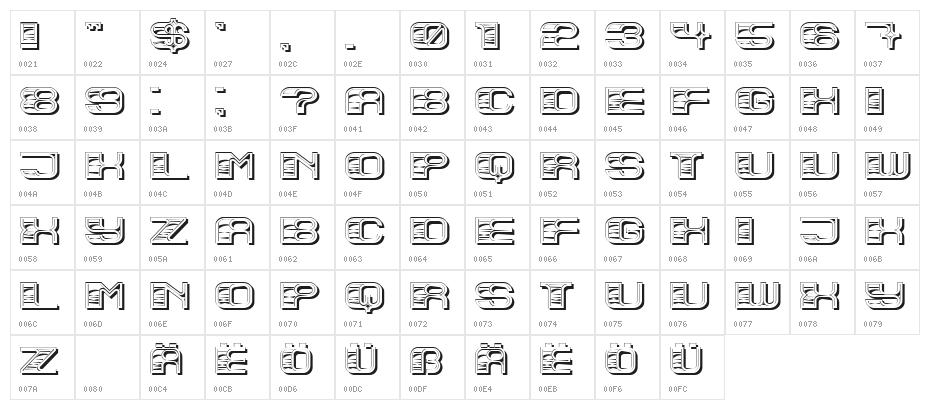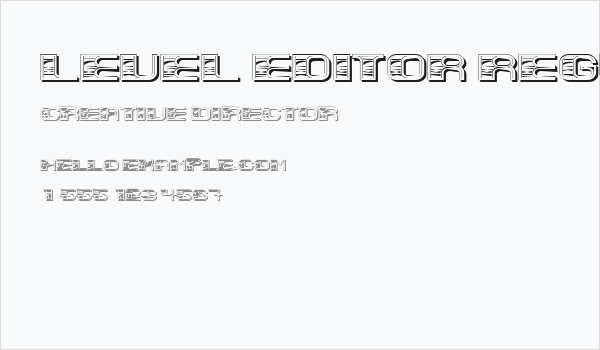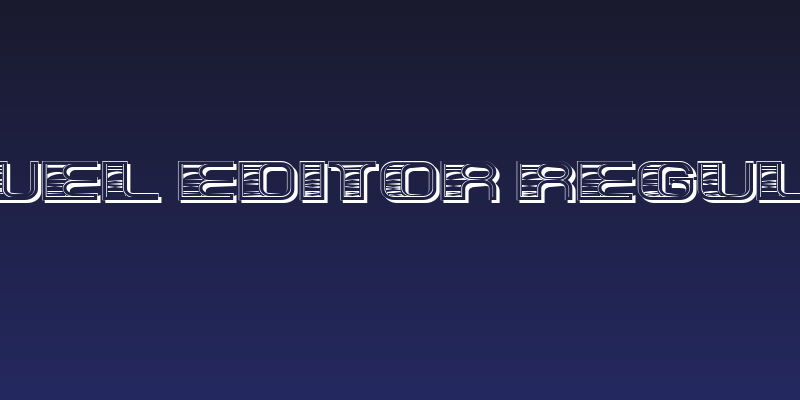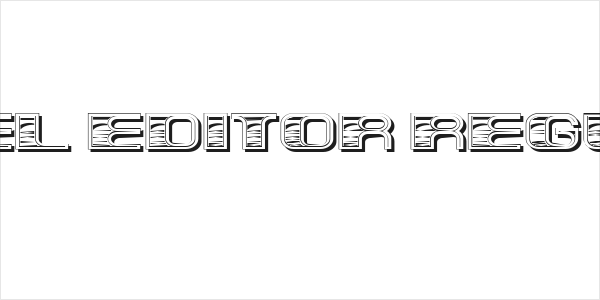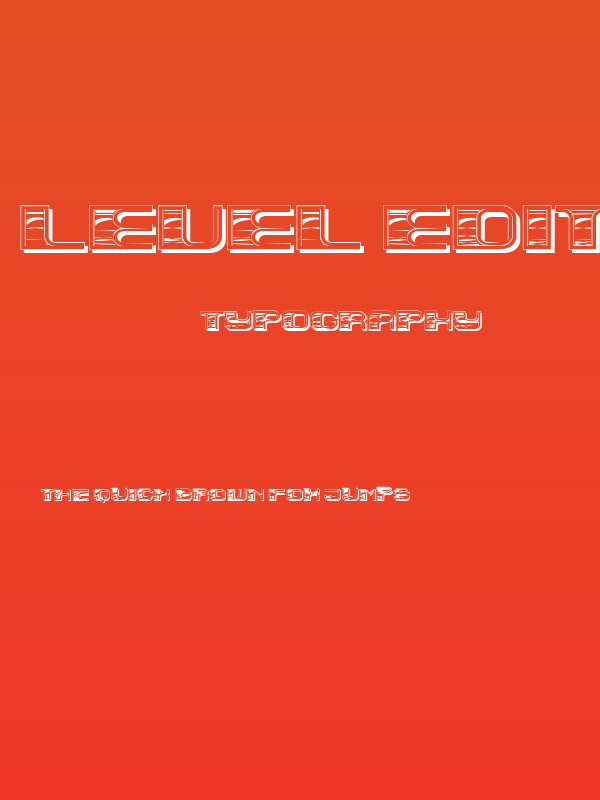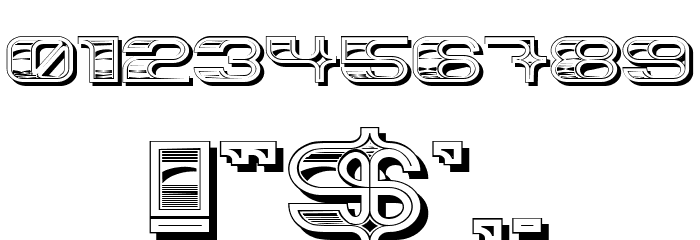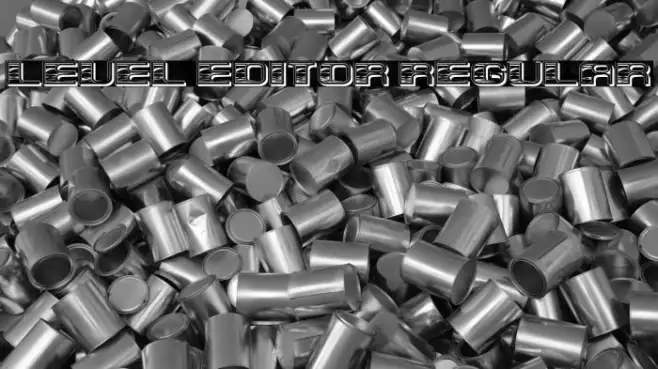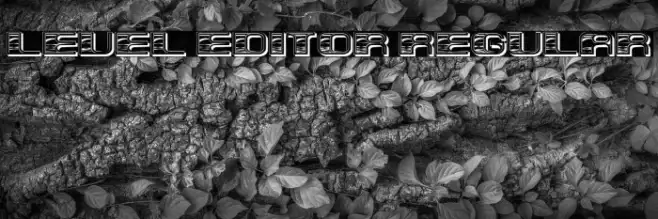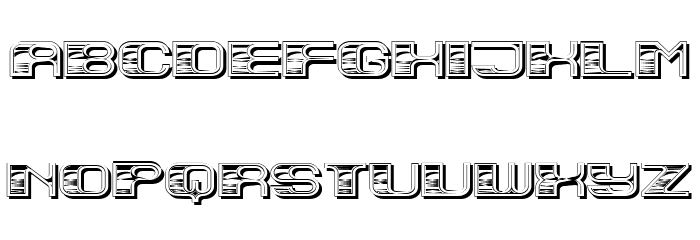
Level Editor Regular Font
Level Editor Regular Description
This font features a bold, decorative style with a distinct three-dimensional effect. The letters are outlined with multiple layers, creating a sense of depth and texture. The design incorporates horizontal lines within the characters, adding to the intricate, layered appearance. The overall aesthetic is modern and eye-catching, making it suitable for projects that require a strong visual impact. The characters are evenly spaced, ensuring readability despite the complex design. This font is ideal for creative projects where a unique and striking typeface is desired.